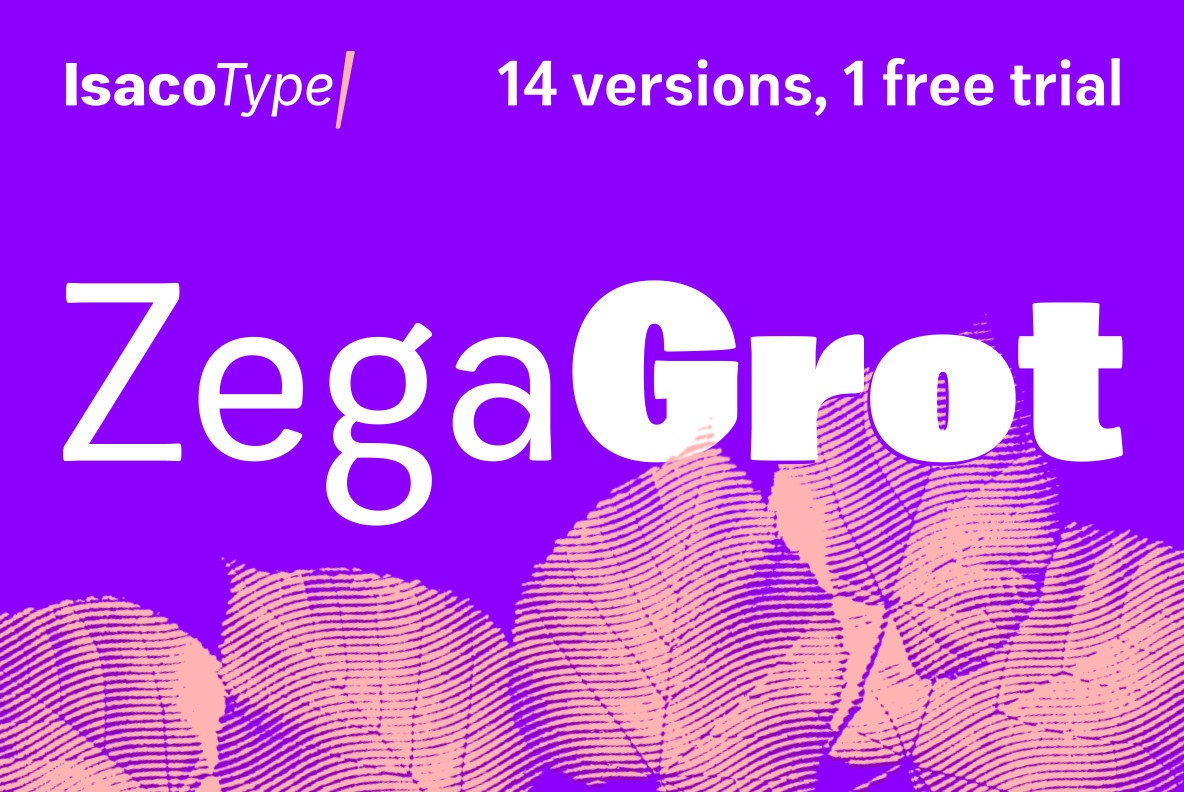
Zega Grot Font
Zega Grot Font is perfect for modern branding projects, logo design, website headers, marketing materials, poster design, magazine layouts, book covers, and contemporary advertising campaigns.
What makes Zega Grot Font so exciting is its perfect balance between geometric precision and humanistic warmth. This contemporary sans-serif typeface brings a fresh, sophisticated approach to modern typography with its clean lines and distinctive character shapes. The font's carefully crafted letterforms create excellent readability while maintaining a strong visual impact that captures attention across all design applications.
The Zega Grot Font family includes multiple weights and styles, ranging from light to bold variations, along with italic versions that provide designers with comprehensive typographic flexibility for any project requirement.
The geometric foundation of Zega Grot Font ensures consistent spacing and alignment, making it perfect for both display and text applications. Its neutral yet distinctive personality allows it to work harmoniously with other design elements while maintaining its unique character. The careful attention to detail in each letterform demonstrates the high quality and craftsmanship that professional designers demand.
For digital applications, Zega Grot Font performs excellently across various screen sizes and resolutions, maintaining its clarity and impact from large headlines to smaller body text. This reliability makes it an excellent choice for responsive web design and mobile applications where consistency is crucial for user experience.